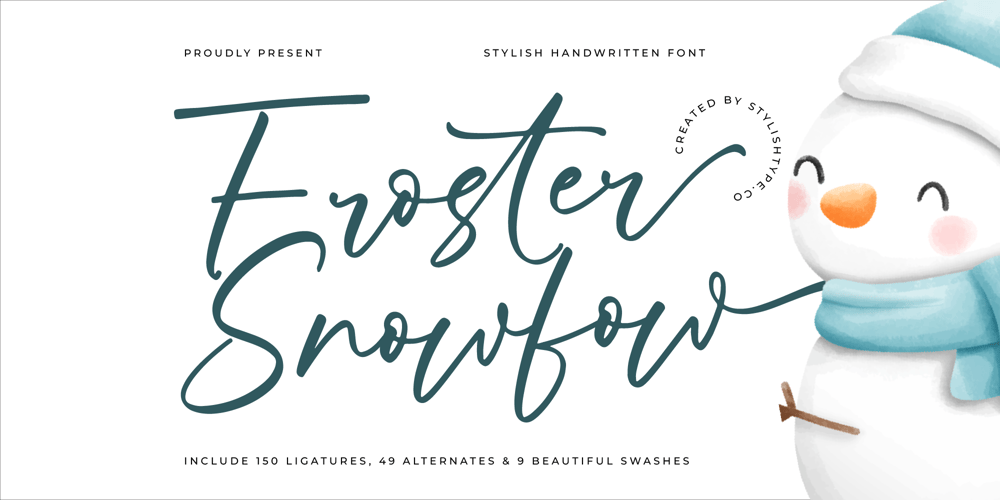
Froster Snowfow Font Family was designed by Heru Utama Putra and published by Stylishtype Studio. Froster Snowfow contains 2 styles and family package options. Froster Snowfow – Stylish Handwritten Font , from Stylishtype , Suitable for any projects such as: logos, branding projects, homeware designs, product packaging, mugs, quotes, posters, shopping bags, t-shirts, book covers, name card, invitation cards, greeting cards, label, photography, watermark, special events, and all your other luxury and beautiful projects that need a Luxury Script taste.